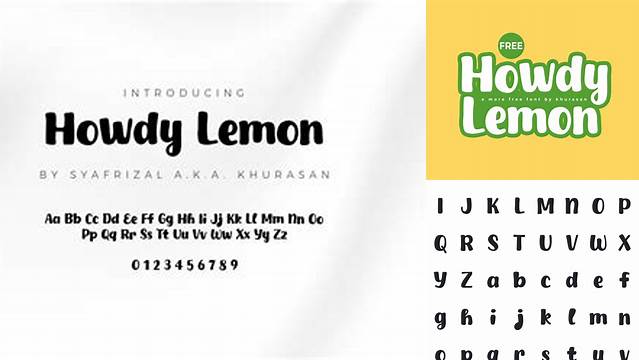
Howdy Lemon Font Free Download: Your Ultimate Guide
Are you on the hunt for that perfect font to give your designs a unique, playful, and eye-catching twist? Well, guys, you've landed in the right spot! We're diving deep into the world of Howdy Lemon font, a typeface that's been making waves in the design community for its quirky charm and versatility. In this comprehensive guide, we'll explore everything you need to know about this awesome font, including its key features, design applications, and, most importantly, where you can snag a free download. So, grab your metaphorical lemonade, and let's get started!
What Makes Howdy Lemon Font So Special?
So, what's the big deal about Howdy Lemon font, anyway? Let's break it down. Howdy Lemon font isn't your run-of-the-mill typeface. It's a font with personality, a font that practically screams fun and creativity. Imagine a font that's bubbly, a little bit quirky, and has a hand-drawn feel β that's Howdy Lemon in a nutshell. This unique character makes it an ideal choice for a wide range of design projects, especially those where you want to inject a bit of playfulness and approachability. Think about logos for children's brands, quirky website headers, eye-catching social media graphics, or even invitations for a fun summer party. The possibilities are truly endless! What sets it apart is its ability to blend a casual, friendly vibe with a touch of sophistication. It's not overly childish or cartoonish, but rather a well-balanced typeface that can be used in both lighthearted and slightly more serious contexts. This versatility is a huge asset for designers looking for a font that can adapt to different project needs. Furthermore, Howdy Lemon font often boasts a distinctive letterform design, with rounded edges, slightly irregular lines, and unique details that make it instantly recognizable. This visual distinctiveness is crucial in a world saturated with fonts, as it allows your designs to stand out from the crowd. It is this unique characteristic that endears it to graphic designers, branding experts, and hobbyists alike. The appeal of Howdy Lemon font also lies in its ability to evoke a sense of nostalgia and handcrafted charm. In a digital age, where everything often feels slick and manufactured, a font like Howdy Lemon offers a refreshing dose of authenticity and human touch. This can be particularly valuable for brands that want to project a warm, approachable, and trustworthy image. The fontβs playful nature does not compromise its legibility, though. A well-designed version of Howdy Lemon font maintains readability across various sizes and applications, ensuring that your message is always clear and impactful. All of these features combine to make Howdy Lemon font a truly special and sought-after typeface. It's a font that can inject personality into your designs, help you stand out from the crowd, and connect with your audience on a more emotional level. So, if you're looking for a font that's both unique and versatile, Howdy Lemon font might just be the perfect choice for your next project.
Design Applications: Unleashing the Power of Howdy Lemon
Alright, you've got your hands on the Howdy Lemon font β fantastic! But now what? How do you actually use this playful typeface to its full potential? Guys, the beauty of Howdy Lemon font lies in its versatility. It can be a star player in a wide range of design applications, from branding and marketing materials to social media graphics and personal projects. The key is to understand its strengths and how to pair it with other design elements to create a cohesive and impactful visual message. Let's explore some specific design applications where Howdy Lemon font can really shine. First up, branding. Imagine a brand that's fun, approachable, and a little bit quirky β a children's clothing store, a handmade goods shop, or a local bakery, perhaps. Howdy Lemon font can be the perfect choice for a logo and visual identity that captures this spirit. Its playful letterforms can instantly convey a sense of warmth and friendliness, making your brand more relatable and memorable. Consider using Howdy Lemon for your logo, website headers, and even packaging design to create a consistent brand experience. In the realm of marketing materials, Howdy Lemon can add a touch of personality and excitement to your flyers, posters, brochures, and advertisements. Think about using it for headlines, call-to-action buttons, and other key elements that you want to stand out. Just be sure to balance its playfulness with clear and concise messaging so that your marketing materials are both visually appealing and effective. Social media is another arena where Howdy Lemon can really make a splash. With its eye-catching design, it's perfect for creating engaging graphics for platforms like Instagram, Facebook, and Twitter. Use it for quote graphics, promotional announcements, and even your profile picture to create a consistent and memorable brand presence online. For personal projects, the sky's the limit with Howdy Lemon! Think about using it for invitations, greeting cards, scrapbooking, and even personalized gifts. Its handwritten feel can add a touch of warmth and personality to any project, making it truly special and unique. When using Howdy Lemon, it's important to consider font pairing. Because it's a display font with a lot of personality, it's best to pair it with a simpler, more neutral font for body text. This will ensure that your design is both visually appealing and easy to read. Some good font pairings for Howdy Lemon include classic sans-serif fonts like Open Sans or Montserrat, or even a clean serif font like Merriweather. It's also important to think about color when using Howdy Lemon. Its playful nature lends itself well to bright, cheerful colors, but it can also look great in more muted tones. Experiment with different color palettes to see what works best for your project and brand. In summary, Howdy Lemon font is a versatile and expressive typeface that can be used in a wide range of design applications. Whether you're branding a new business, creating marketing materials, or designing personal projects, Howdy Lemon can add a touch of personality and excitement to your work. So go ahead, unleash the power of Howdy Lemon and see what you can create!
Tips and Tricks for Using Howdy Lemon Font Effectively
So, you're all geared up to use Howdy Lemon font in your designs β awesome! But before you dive in headfirst, let's talk about some tips and tricks that can help you use this font effectively and avoid some common pitfalls. Guys, like any design element, the way you use a font can make or break your design. With its unique personality and charm, Howdy Lemon font can be a powerful tool, but it needs to be handled with care to achieve the best results. First and foremost, consider the context of your design. Is it a formal business presentation, or a fun birthday invitation? Howdy Lemon is generally best suited for projects that have a playful, friendly, or informal tone. While it can be used in more serious contexts, you'll need to be mindful of how you use it and pair it with other elements to ensure it doesn't clash with the overall message. Next up, think about legibility. While Howdy Lemon is generally quite readable, it's not always the best choice for long blocks of text. Its unique letterforms, while charming, can become tiring to read in large quantities. For body text, it's usually best to stick with a simpler, more traditional font. Howdy Lemon is better suited for headlines, subheadings, logos, and other shorter text elements where its personality can really shine. As we mentioned earlier, font pairing is crucial. Howdy Lemon is a display font with a lot of character, so it's essential to pair it with a complementary font that doesn't compete for attention. A classic sans-serif font like Open Sans or Lato, or a clean serif font like Roboto Slab, can be great choices for body text. The goal is to create a visual hierarchy where Howdy Lemon stands out but doesn't overwhelm the rest of the design. White space is your friend! Don't overcrowd your design with text. Give Howdy Lemon room to breathe by using plenty of white space around it. This will help it stand out and make your design more visually appealing. Also, pay attention to letter spacing and line height. Adjusting these settings can significantly impact the legibility and overall appearance of your text. Experiment with different settings to see what works best for your design. Color can also play a big role in how Howdy Lemon is perceived. Its playful nature lends itself well to bright, cheerful colors, but it can also look great in more muted tones. Consider the overall color palette of your design and choose colors that complement Howdy Lemon and enhance its personality. Before you finalize your design, always take a step back and view it from a distance. This can help you spot any issues with legibility, balance, or overall visual impact. It's also a good idea to get feedback from others to get a fresh perspective on your design. Finally, remember that less is often more. Don't overuse Howdy Lemon or any other display font in your design. Use it sparingly and strategically to highlight key elements and create visual interest. Overusing it can make your design feel cluttered and overwhelming. By following these tips and tricks, you can effectively use Howdy Lemon font to create stunning designs that are both visually appealing and impactful. So go ahead, experiment, and have fun with it! This font is all about creativity, so don't be afraid to let your imagination run wild.
Conclusion: Embrace the Playfulness of Howdy Lemon Font
So, guys, we've reached the end of our journey into the wonderful world of Howdy Lemon font. From its unique personality and versatile design applications to tips and tricks for effective use, we've covered a lot of ground. The key takeaway here is that Howdy Lemon font is a typeface that's all about playfulness, creativity, and making a statement. Whether you're designing a logo for a fun new brand, creating eye-catching social media graphics, or adding a personal touch to your DIY projects, Howdy Lemon can be a valuable asset in your design toolkit. Remember, the most important thing is to embrace the font's unique character and use it in a way that complements your message and brand. Don't be afraid to experiment with different pairings, colors, and layouts to see what works best for you. And most importantly, have fun! Design should be an enjoyable process, and Howdy Lemon font is the perfect typeface to help you unleash your inner creativity. We've explored the importance of finding reputable sources for your free downloads and checking licensing agreements. This ensures you're using the font legally and ethically. Remember, supporting font designers is crucial for the continued growth and innovation in the design community. So, while a free download is always a plus, consider purchasing a commercial license if you plan to use Howdy Lemon font extensively in your business projects. We've also delved into the various design applications where Howdy Lemon can really shine, from branding and marketing to social media and personal projects. It's a versatile font that can adapt to a wide range of needs, but it's important to use it strategically and in the right context. We've highlighted the importance of font pairing and using Howdy Lemon sparingly to avoid overwhelming your design. By pairing it with a simpler, more neutral font for body text, you can create a visual hierarchy that is both appealing and easy to read. Finally, we've shared some practical tips and tricks for using Howdy Lemon font effectively, such as considering the context, prioritizing legibility, and giving your design plenty of white space. These guidelines will help you make the most of this unique typeface and avoid some common design pitfalls. In conclusion, Howdy Lemon font is a fantastic choice for anyone looking to add a touch of personality and playfulness to their designs. With its unique character and versatile applications, it's a font that can truly help you stand out from the crowd. So go ahead, embrace the playfulness of Howdy Lemon font and let your creativity flow!